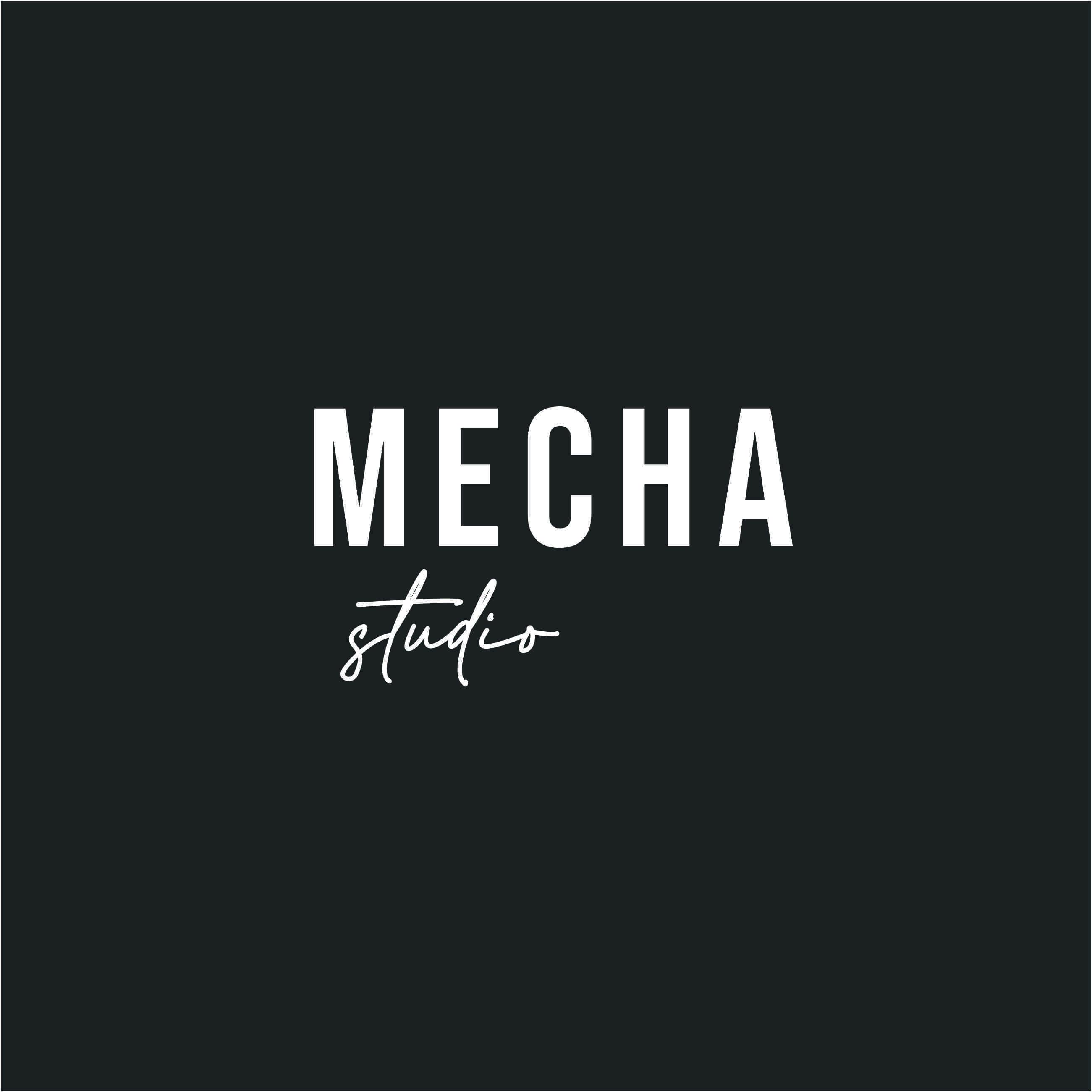
Play Sharp Font Description
Play Sharp font style is a modern display font that is suitable for logo design, social media posts, movie and book titles, short text, and even long text creations. Add it to your creative projects and watch how it captures your audience’s attention.